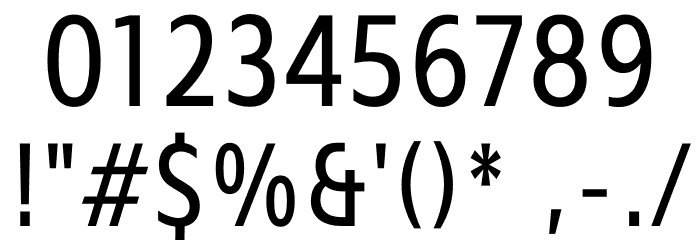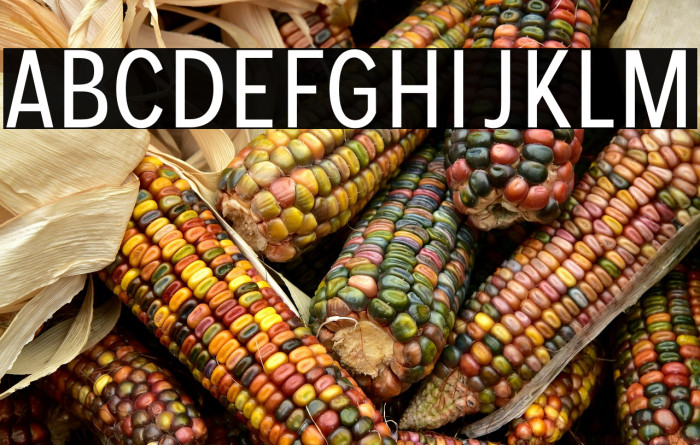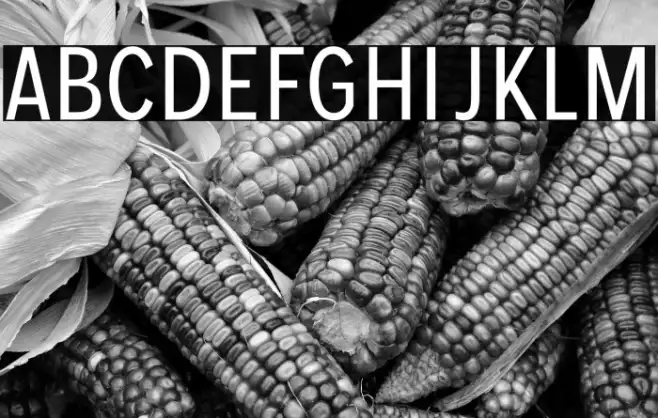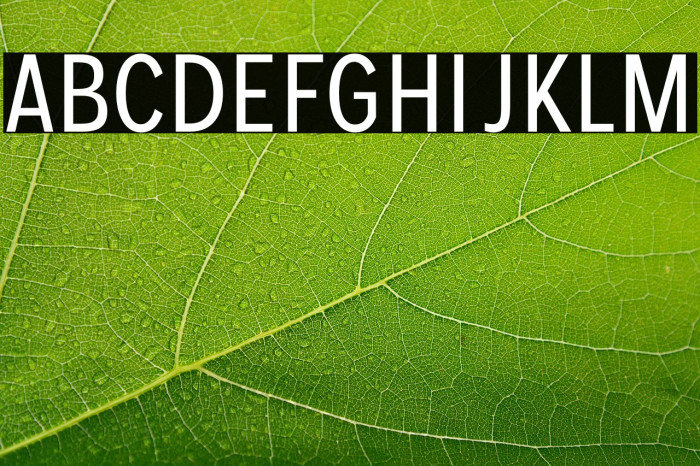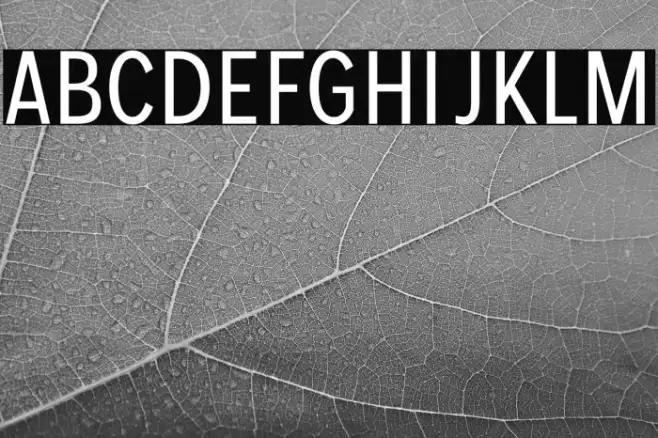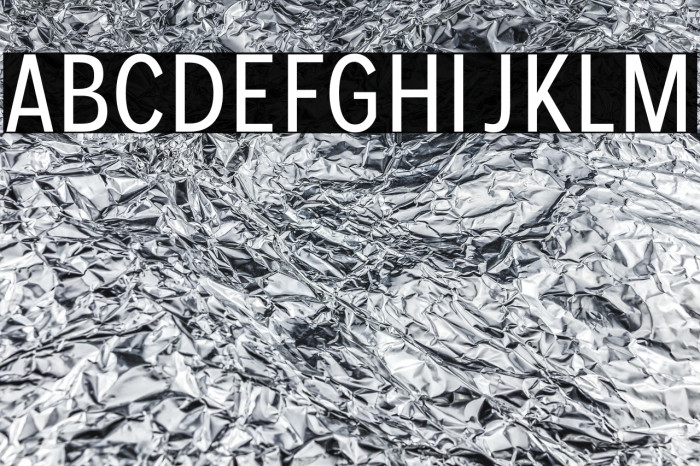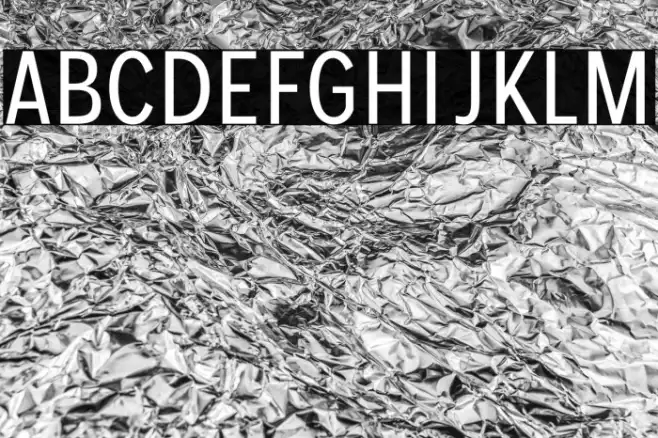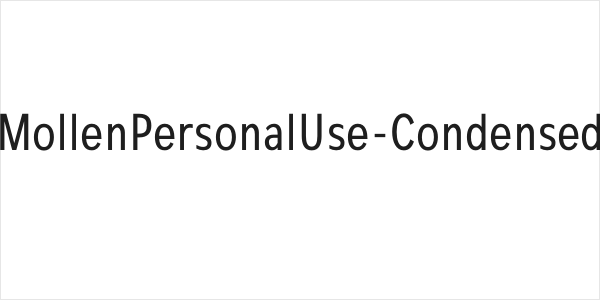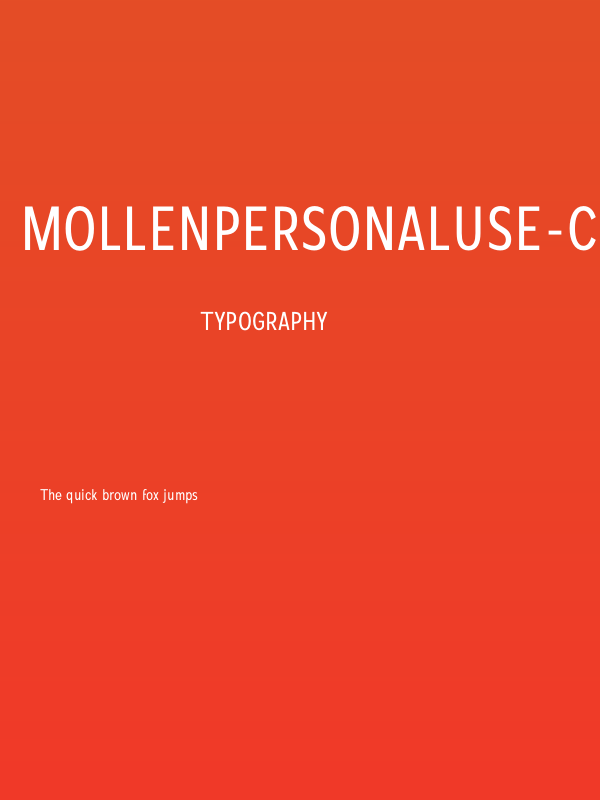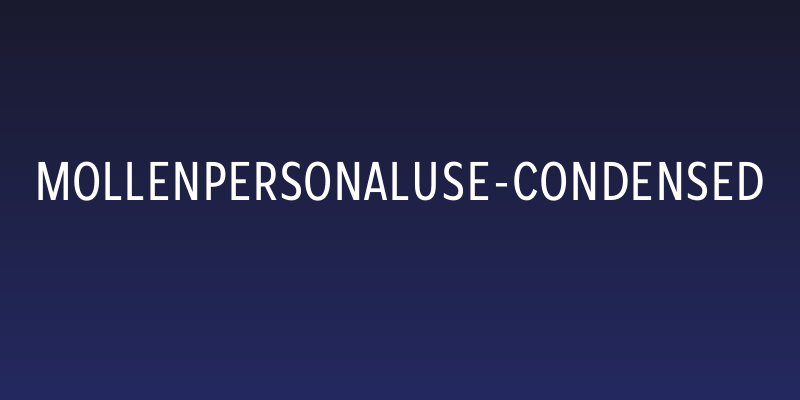
MollenPersonalUse-Condensed Font
MollenPersonalUse-Condensed Description
This font features a clean and modern sans-serif design with a condensed width, making it ideal for space-saving applications. The characters are uniform and well-balanced, with a consistent stroke width that provides a sleek and professional appearance. The uppercase and lowercase letters are clearly distinguishable, and the numerals are straightforward and easy to read. The special characters are designed to match the overall aesthetic, ensuring a cohesive look across all text elements. This font is versatile and can be used in a variety of design projects where clarity and modernity are desired.
| Proposed Projects | Ideal for branding, advertising, web design, and editorial layouts where space is limited. |